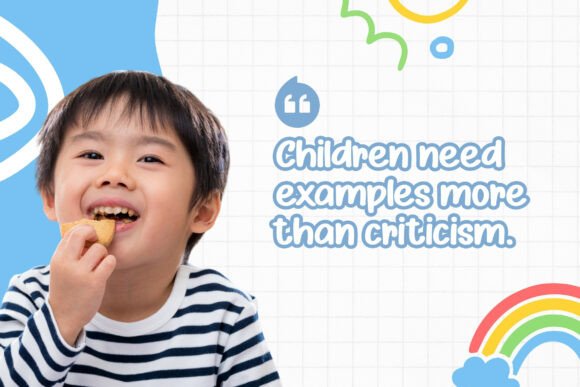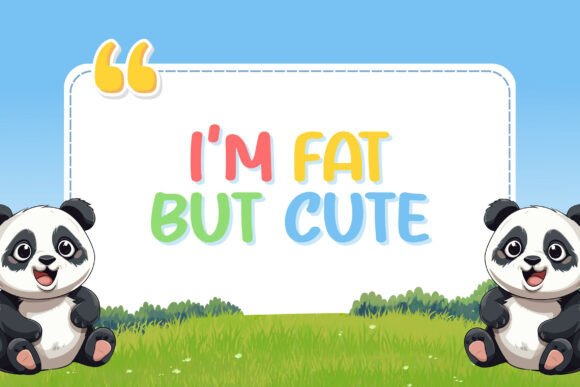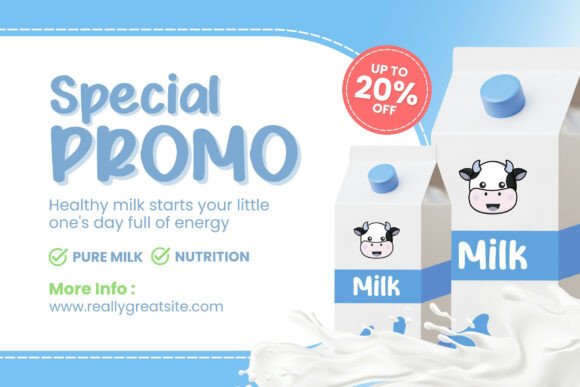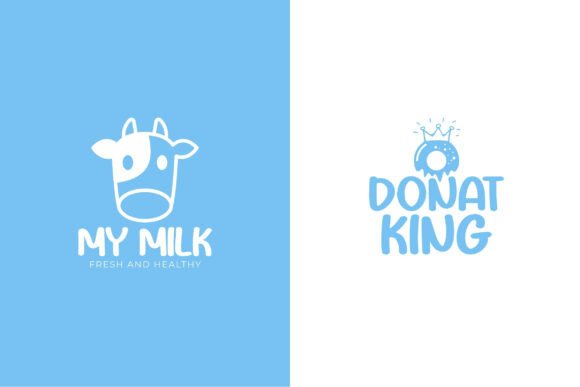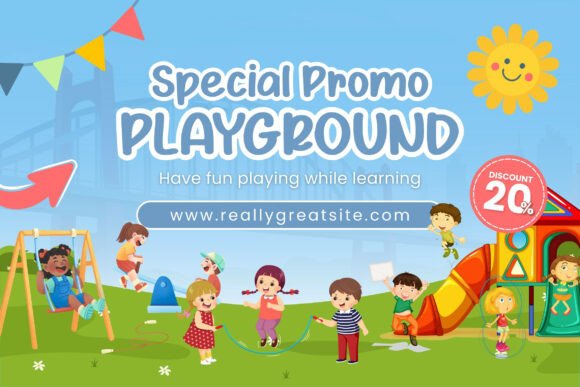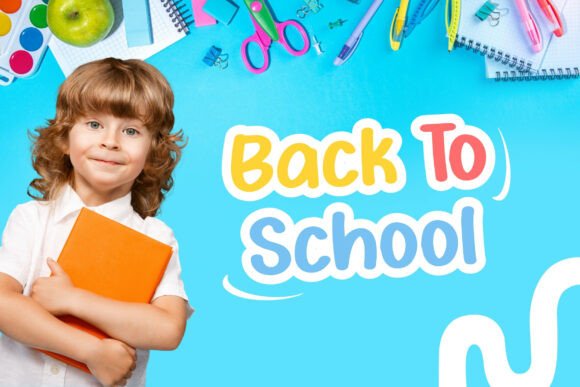
Introduction to Cute Rusly Font
Who hasn’t felt a rush of excitement when stumbling upon the perfect design element for a creative project? For designers working on children-focused projects, the search for the right font can be especially thrilling. Imagine the moment you discover a font that not only captures the playful spirit of your design but also makes it feel approachable and engaging. That’s exactly what the Cute Rusly Font offers.
As a high-quality, rounded font, Cute Rusly Font is designed to bring a sense of joy and friendliness to any design. With its smooth curves and playful proportions, this font creates a clean and easy-to-read impression that’s perfect for a variety of creative projects. Whether you’re working on a children’s book, educational materials, or kids’ branding, the Cute Rusly Font is an invaluable resource that’s sure to elevate your design to the next level.
What makes the Cute Rusly Font truly special is its versatility. With a transparent background and a free download option, designers can easily incorporate this font into their projects without any hassle. Whether you’re working on a social media campaign, a fun headline, or a kids’ logo, the Cute Rusly Font is the perfect addition to bring a smile to your audience’s faces.
Key Features of Cute Rusly Font
- Cute Rusly Font includes a range of characters, including uppercase and lowercase letters, numbers, and special symbols.
- Unique, playful design makes it perfect for adding a touch of whimsy to children’s books, greeting cards, and other creative projects.
Honest Review: Cute Rusly Font
As a designer, I’m always on the lookout for high-quality design resources that can elevate my creative projects. The Cute Rusly Font caught my eye with its playful, handwritten style.
What works well: ✨ The font is super versatile and can be used for a variety of projects, from blog posts to social media graphics. The transparent background makes it easy to use with any design.
Here are some key features that stood out to me:
- Playful, handwritten style that’s perfect for adding personality to your designs
What doesn’t work so well: ⚠️ While the font is high-quality, it may not be suitable for formal or professional projects. Additionally, the style may be a bit too cutesy for some designs.
Overall, I’m impressed with the Cute Rusly Font. It’s a great addition to any designer’s toolkit and can add a fun touch to your creative projects. With its high-quality design and transparent background, it’s definitely worth a try.
Cute Rusly Font
Design Resource for Your Creative Project
The Cute Rusly Font is a high-quality design resource perfect for any creative project. With its unique and playful style, this font is ideal for adding a touch of whimsy to your designs. Download it for free and start creating today!
Getting the Most Out of Cute Rusly Font
To get the most out of the Cute Rusly Font, try using it with a transparent background to create a sense of depth and dimension. You can also experiment with different font sizes and colors to add visual interest to your designs.
The Cute Rusly Font is perfect for a variety of creative projects, including:
Children’s book illustrations
Wedding invitations
Party decorations
Brand identity design
With its high-quality design and free download, the Cute Rusly Font is a must-have resource for any creative project. Start using it today and take your designs to the next level!